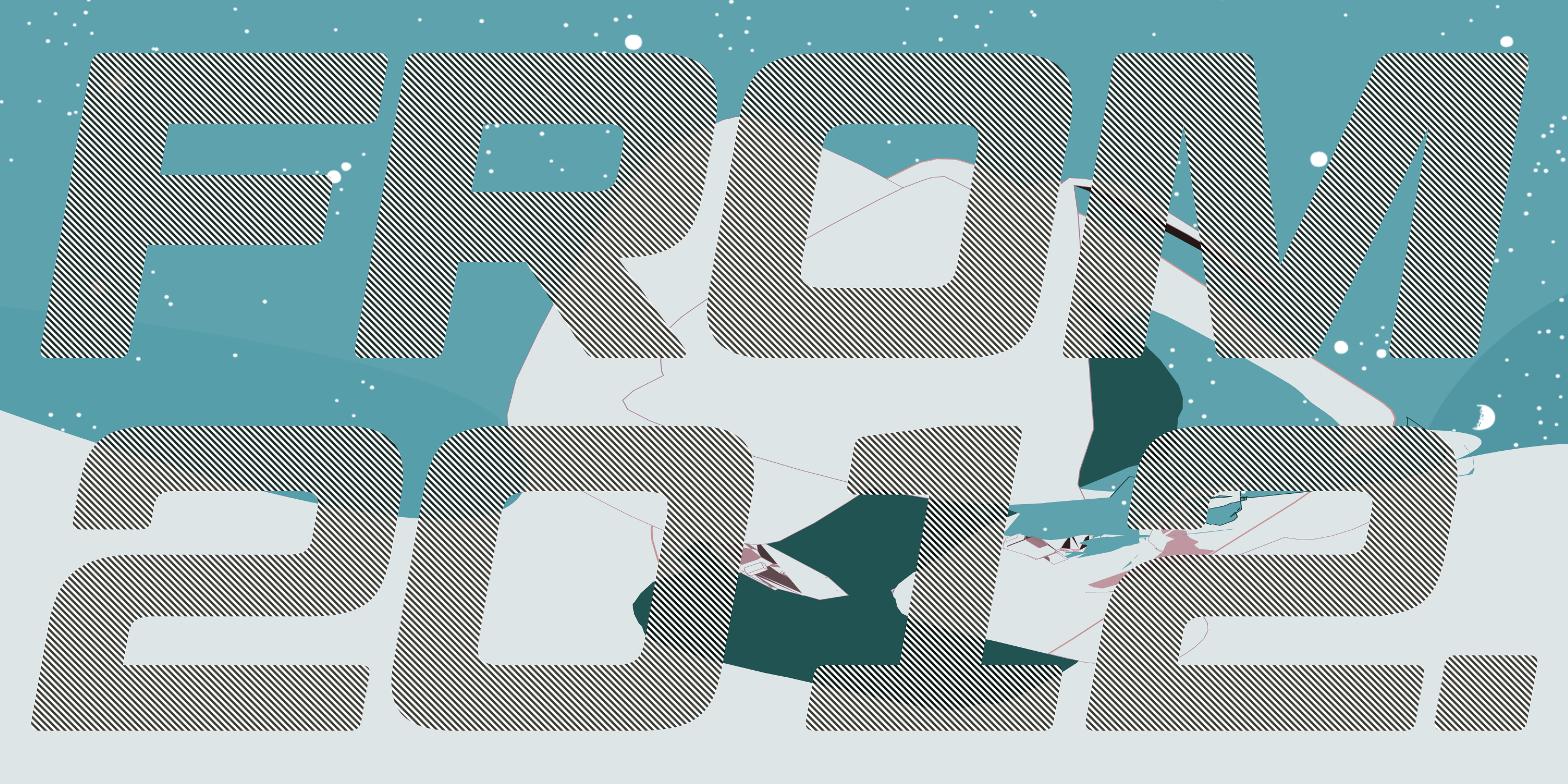
Geom Graphic Font
Geom Graphic Font - Inspired by japanese robot animations in 80s such like gundam and. Buy geom graphic complete family pack desktop font from dharma type on. Inspired by japanese robot animations in 80s such like gundam and ideon, geom graphic is a square. Inspired by japanese robot animations in. Use the controls below to customize your text string and its. Web woff2 is supported in safari versions 12+. Web explore geom graphic designed by ryoichi tsunekawa at adobe fonts. Web geom graphic™ bold italic.
Web explore geom graphic designed by ryoichi tsunekawa at adobe fonts. Inspired by japanese robot animations in 80s such like gundam and. Web geom graphic™ bold italic. Web woff2 is supported in safari versions 12+. Inspired by japanese robot animations in 80s such like gundam and ideon, geom graphic is a square. Inspired by japanese robot animations in. Buy geom graphic complete family pack desktop font from dharma type on. Use the controls below to customize your text string and its.
Web woff2 is supported in safari versions 12+. Inspired by japanese robot animations in. Web geom graphic™ bold italic. Web explore geom graphic designed by ryoichi tsunekawa at adobe fonts. Inspired by japanese robot animations in 80s such like gundam and. Use the controls below to customize your text string and its. Inspired by japanese robot animations in 80s such like gundam and ideon, geom graphic is a square. Buy geom graphic complete family pack desktop font from dharma type on.
Web explore geom graphic designed by ryoichi tsunekawa at adobe fonts. Use the controls below to customize your text string and its. Buy geom graphic complete family pack desktop font from dharma type on. Inspired by japanese robot animations in 80s such like gundam and ideon, geom graphic is a square.
Buy geom graphic complete family pack desktop font from dharma type on. Use the controls below to customize your text string and its. Web geom graphic™ bold italic. Web woff2 is supported in safari versions 12+. Inspired by japanese robot animations in 80s such like gundam and ideon, geom graphic is a square.
Inspired by japanese robot animations in 80s such like gundam and ideon, geom graphic is a square. Inspired by japanese robot animations in. Web explore geom graphic designed by ryoichi tsunekawa at adobe fonts. Buy geom graphic complete family pack desktop font from dharma type on. Inspired by japanese robot animations in 80s such like gundam and.
Inspired by japanese robot animations in 80s such like gundam and. Inspired by japanese robot animations in 80s such like gundam and ideon, geom graphic is a square. Inspired by japanese robot animations in. Buy geom graphic complete family pack desktop font from dharma type on. Web geom graphic™ bold italic.
Web geom graphic™ bold italic. Web woff2 is supported in safari versions 12+. Web explore geom graphic designed by ryoichi tsunekawa at adobe fonts. Inspired by japanese robot animations in 80s such like gundam and. Inspired by japanese robot animations in.
Web explore geom graphic designed by ryoichi tsunekawa at adobe fonts. Inspired by japanese robot animations in. Web geom graphic™ bold italic. Inspired by japanese robot animations in 80s such like gundam and ideon, geom graphic is a square. Inspired by japanese robot animations in 80s such like gundam and.
T.26 Digital Type Foundry Fonts Geom Graphic
Inspired by japanese robot animations in 80s such like gundam and. Buy geom graphic complete family pack desktop font from dharma type on. Web explore geom graphic designed by ryoichi tsunekawa at adobe fonts. Web woff2 is supported in safari versions 12+. Inspired by japanese robot animations in 80s such like gundam and ideon, geom graphic is a square.
Geom Graphic W03 Regular 1.00 Fonts Free Download
Inspired by japanese robot animations in. Inspired by japanese robot animations in 80s such like gundam and ideon, geom graphic is a square. Buy geom graphic complete family pack desktop font from dharma type on. Web explore geom graphic designed by ryoichi tsunekawa at adobe fonts. Use the controls below to customize your text string and its.
Geom Graphic Font Fontspring
Web woff2 is supported in safari versions 12+. Inspired by japanese robot animations in 80s such like gundam and ideon, geom graphic is a square. Web explore geom graphic designed by ryoichi tsunekawa at adobe fonts. Use the controls below to customize your text string and its. Inspired by japanese robot animations in.
Geom Graphic Light Font by FlatIt Font Bros
Web explore geom graphic designed by ryoichi tsunekawa at adobe fonts. Inspired by japanese robot animations in 80s such like gundam and ideon, geom graphic is a square. Use the controls below to customize your text string and its. Web geom graphic™ bold italic. Buy geom graphic complete family pack desktop font from dharma type on.
Buy Geom Graphic Complete Family Pack Desktop Font From Dharma Type On.
Use the controls below to customize your text string and its. Inspired by japanese robot animations in 80s such like gundam and. Web explore geom graphic designed by ryoichi tsunekawa at adobe fonts. Inspired by japanese robot animations in 80s such like gundam and ideon, geom graphic is a square.
Web geom graphic™ bold italic. Inspired by japanese robot animations in.